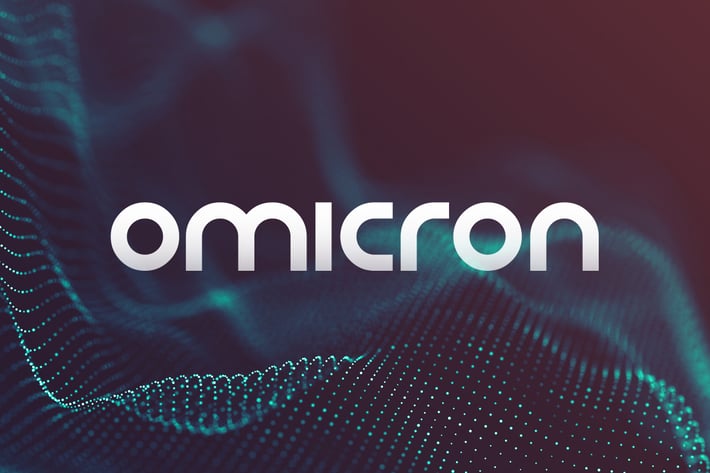
Omicron Typeface
MehmetRehaTugcu
Omicron is a lowercase display typeface in 2 weights. It includes lowercase letters, alternates, numbers and punctuation.